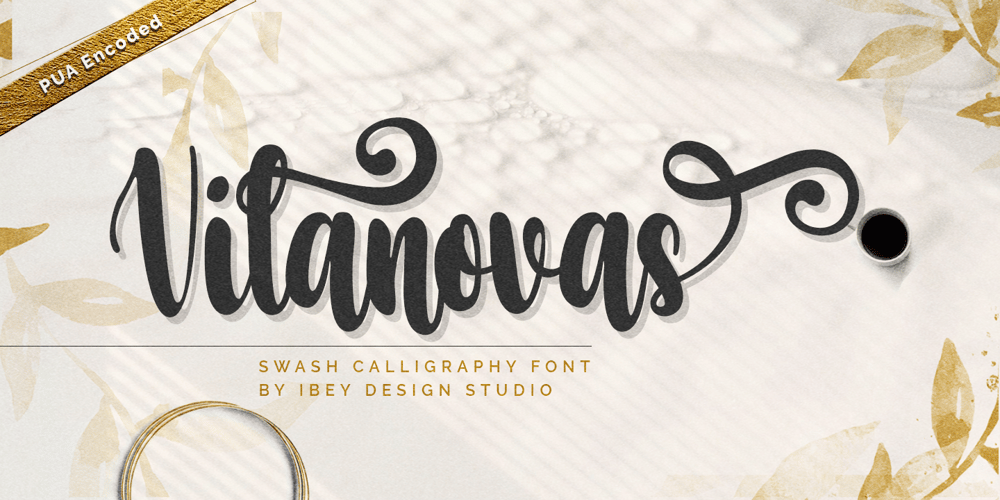
Vilanovas Font Family was designed by Ikrar Bey Khubaib and published by IbeyDesign. Vilanovas contains 1 styles and family package options. Vilanovas Modern Calligraphy Font that inspires friendliness and elegance. It is perfect to use for any of your wonderful creations such as branding projects, logos, brochures, business cards, wedding invitations, and many others.